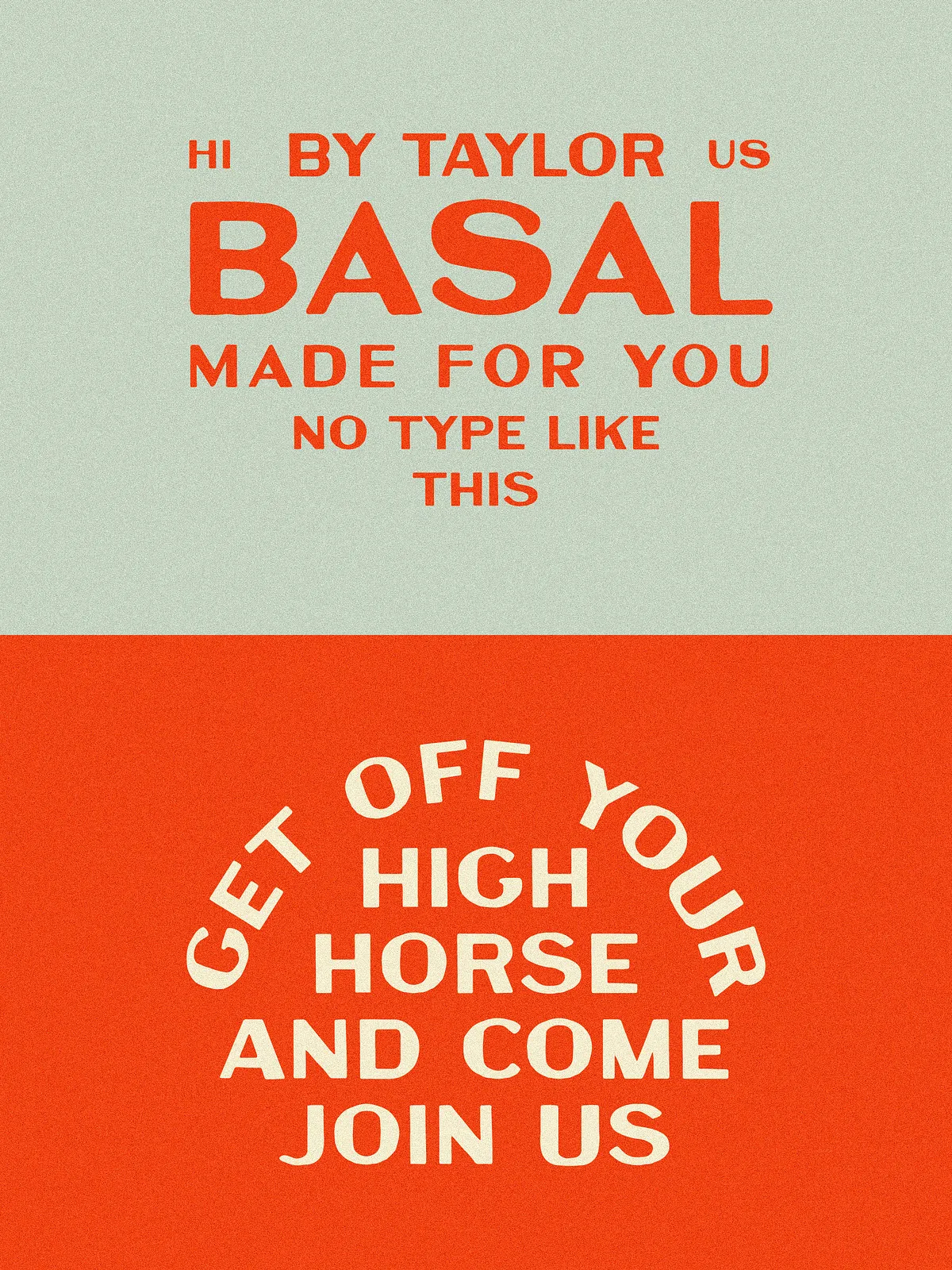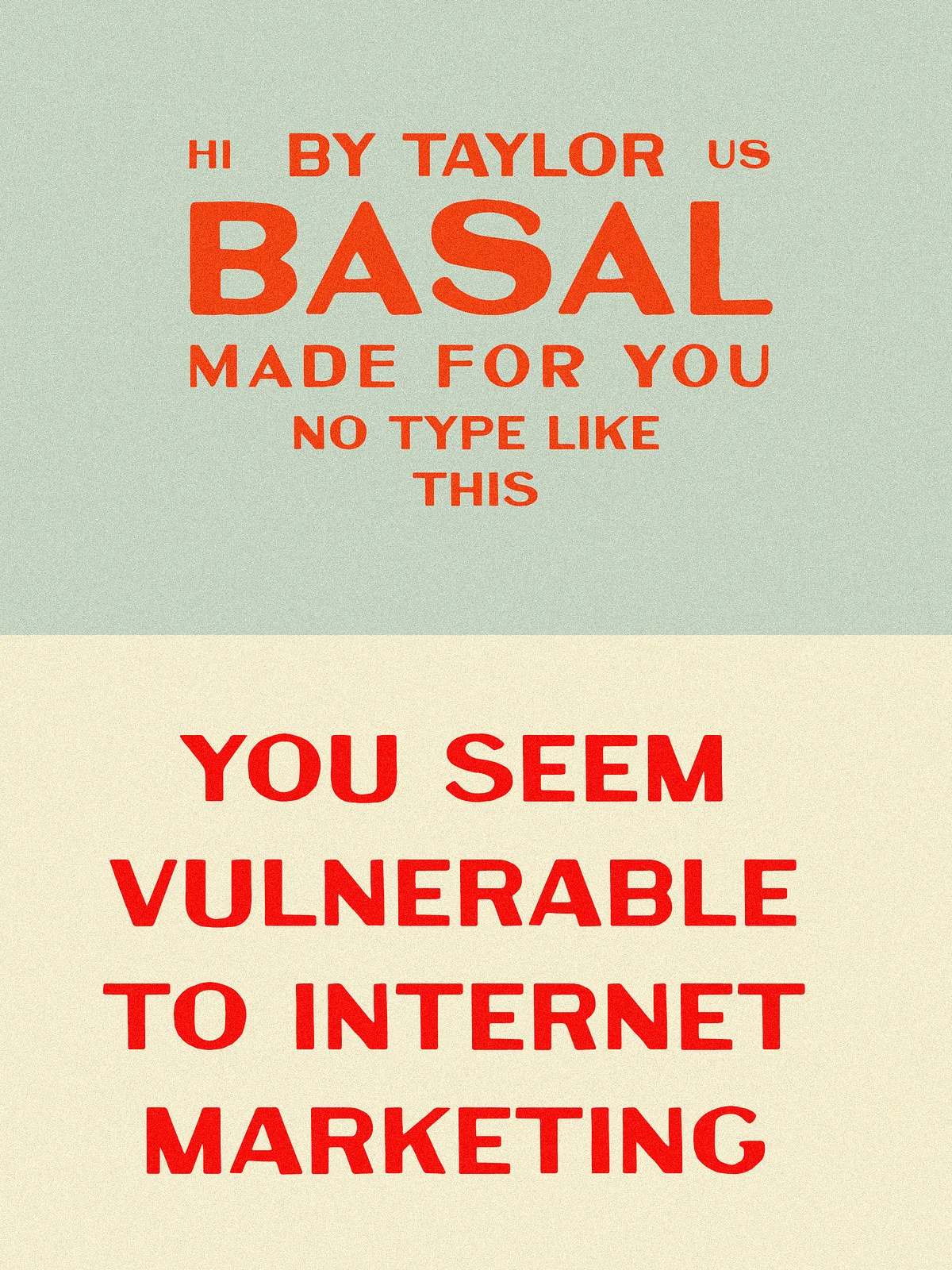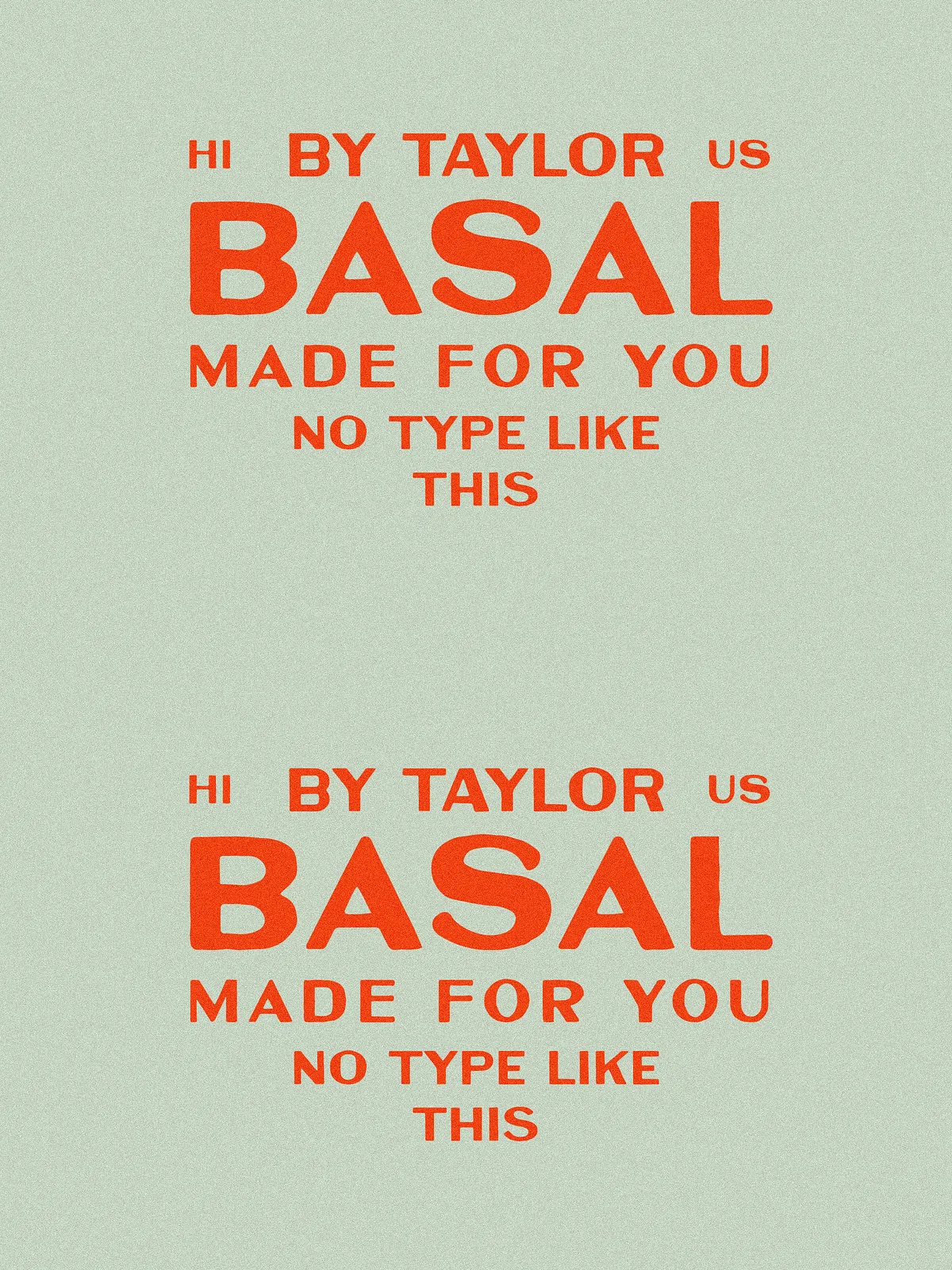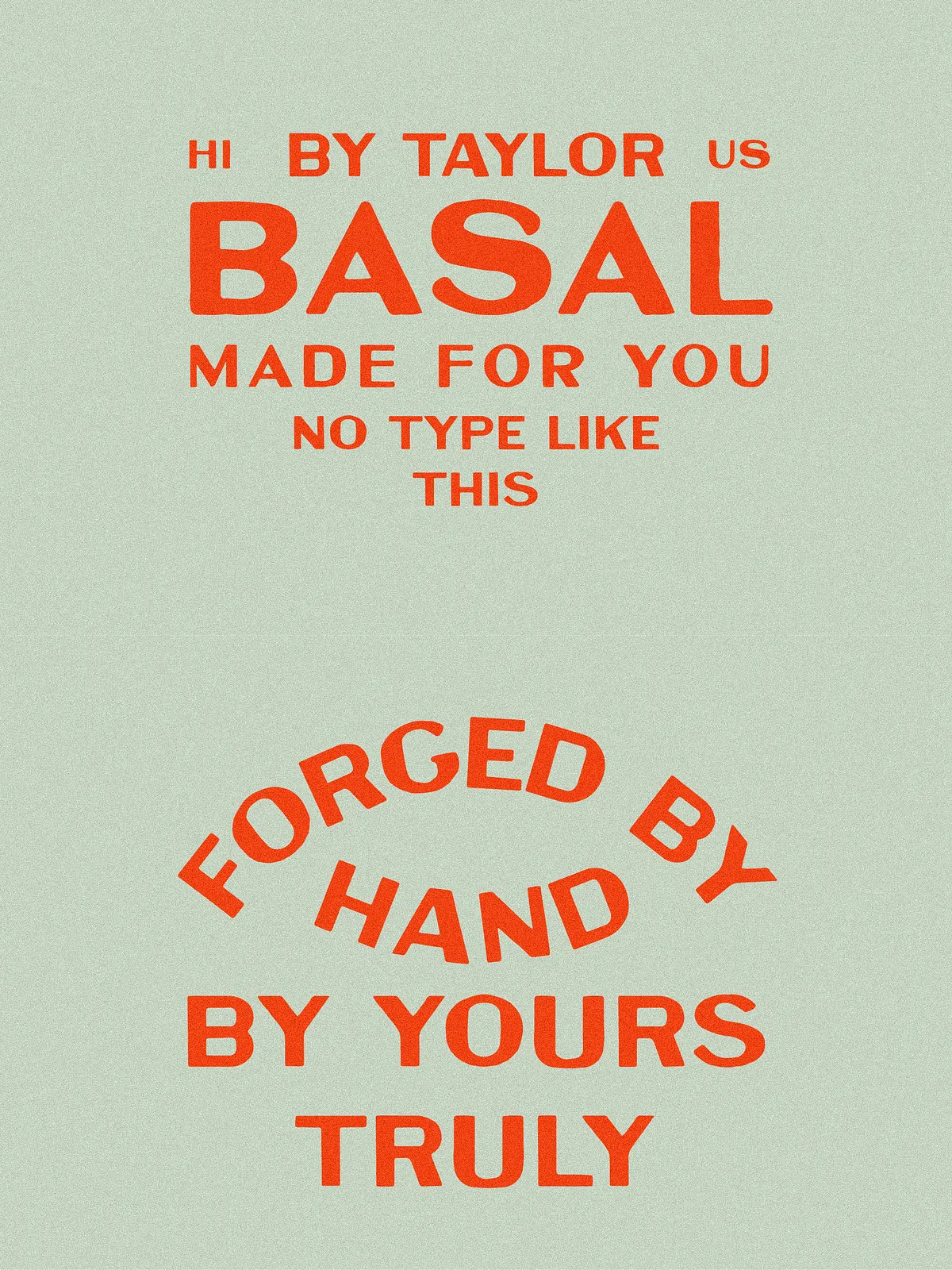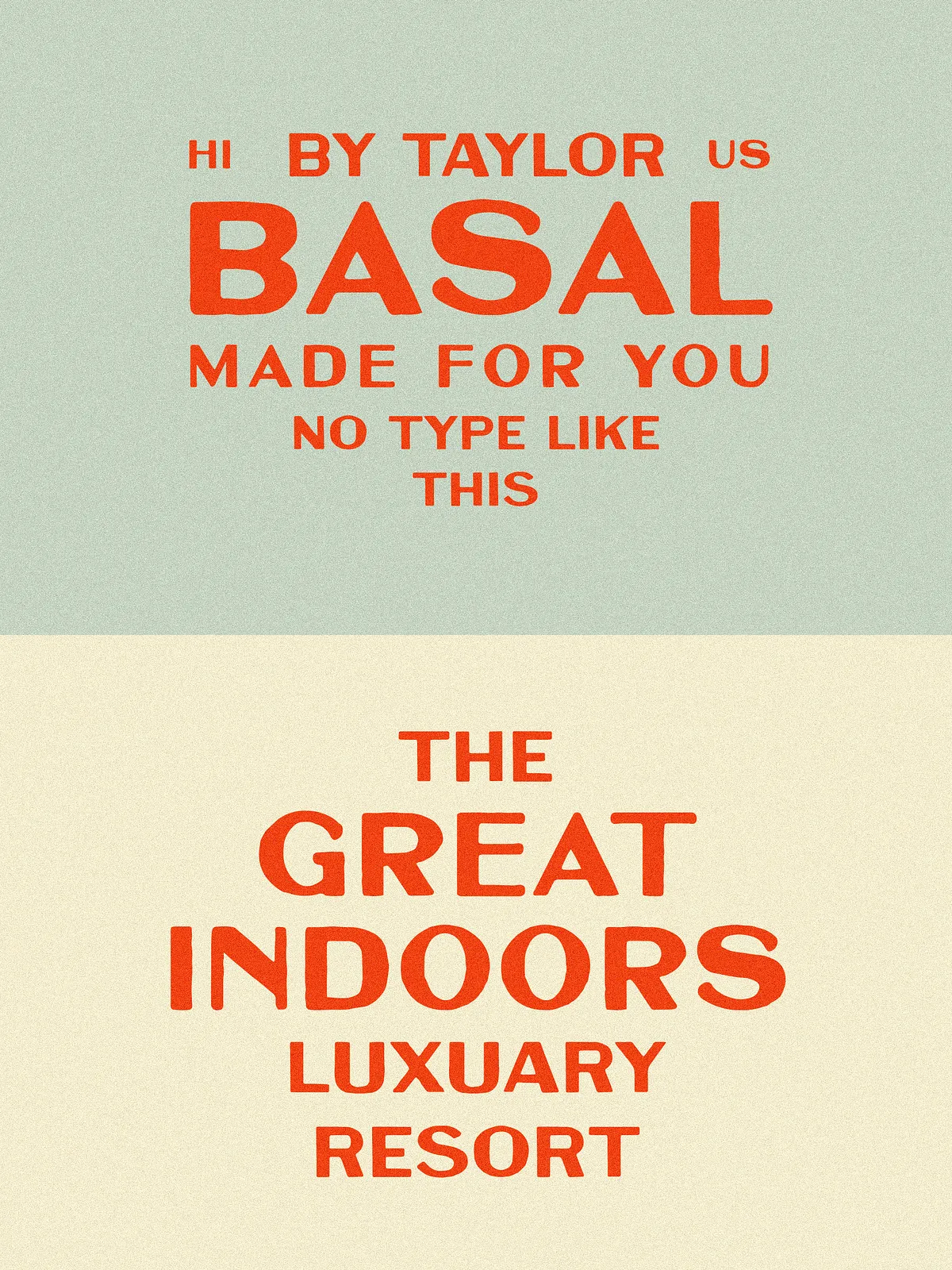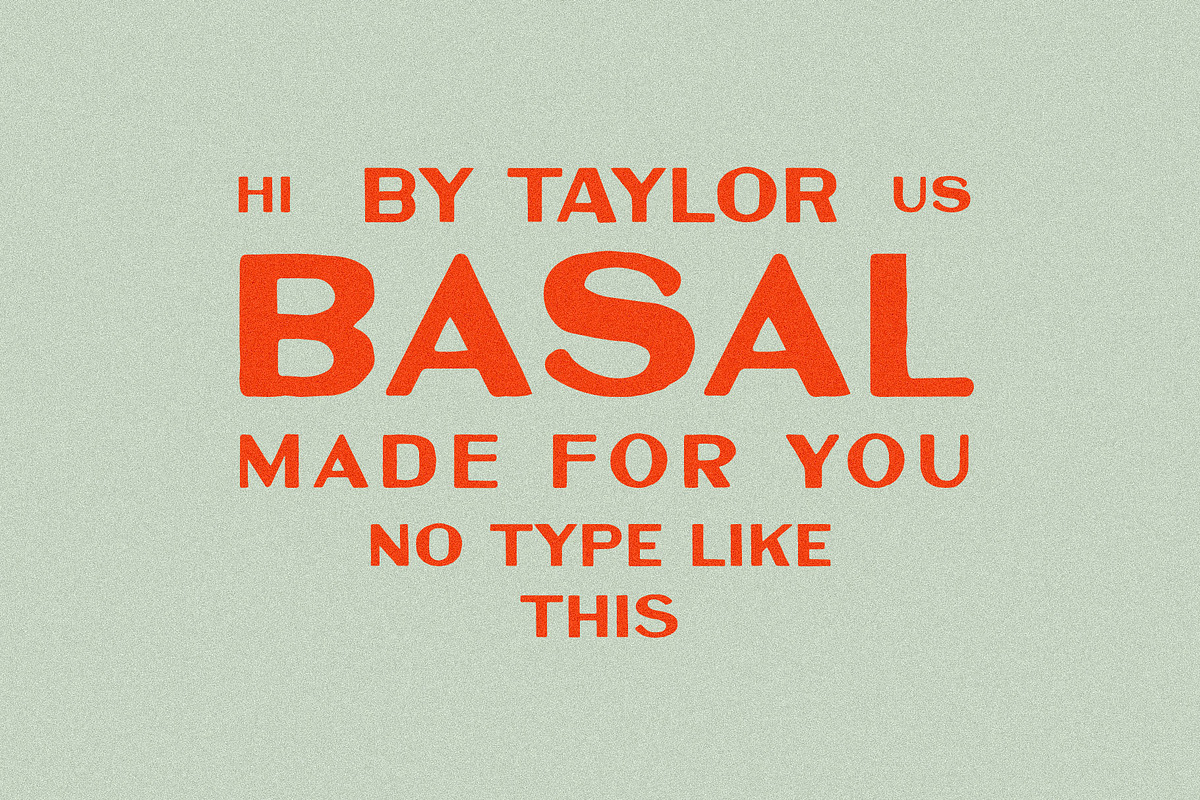
Step into the future with Basal I A — a bold, minimalist sans serif typeface that draws strength from the past while shaping the visual language of tomorrow. Named after the Spanish word for “base layer” or “fundamental,” this typeface is more than a font — it’s the foundation upon which powerful designs are built. Inspired by an antique bottle from 1910, Basal I A blends vintage character with contemporary precision, creating a unique fusion of heritage and modernity that speaks directly to designers who value strength, clarity, and visual impact.
Why Basal I A Stands Out in a Sea of Fonts
In a world overflowing with predictable typefaces, Basal I A cuts through the noise with a fearless, architectural presence. Its clean lines, tight proportions, and dramatic weight make every letter command attention. Engineered for clarity and impact, it’s ideal for bold statements, minimalist branding, and high-contrast layouts. Whether you’re designing a luxury label, a tech startup identity, or a magazine cover, Basal I A delivers instant credibility and visual authority.
Key Features That Power Your Design
- Ultra-Bold Weight – Thick, confident strokes ensure maximum visibility and impact at any size.
- Full Uppercase Set – All uppercase letters for strong, consistent formatting in headlines, titles, and logos.
- Numbers & Basic Punctuation – Includes all digits 0–9 and essential punctuation for complete textual support.
- Minimalist Aesthetic – Clean, geometric forms that enhance readability without sacrificing style.
- High-Contrast Visuals – Perfect for pairing with thin fonts or using alone for maximum punch.
- Modern Geometry with Vintage Soul – The subtle curves and structural balance reflect the classic 1910 bottle design, giving the font depth and storytelling power.
Design Applications: Where Basal I A Shines
Logo & Brand Identity Design
Build unshakeable brand recognition. Basal I A’s strong silhouette turns simple text into a visual trademark. Use it for fashion houses, beverage brands, tech startups, or creative studios that want a name that sticks — and looks unforgettable.
Headlines & Editorial Layouts
Create compelling magazine covers, editorial pages, or website banners. Its bold presence grabs the reader’s eye, setting the tone for the content that follows. Ideal for feature stories, product launches, and campaign promos.
Merchandising & Packaging
Make packaging pop on crowded shelves. Whether on t-shirts, coffee cups, or product boxes, Basal I A turns your brand name into a statement piece.
Advertising & Promotions
Grab attention in digital ads, billboards, and posters. Its high visibility and clean lines ensure your message isn’t just seen — it’s remembered.
Architectural & Minimalist Design
Perfect for design projects that emphasize structure and simplicity. Use Basal I A in infographics, floor plans, signage, or UX interfaces where clarity and impact are non-negotiable.